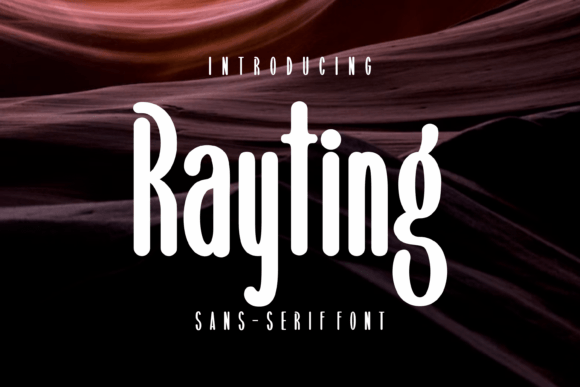
Introducing Rayting, the font that will ignite your creativity and take your designs to the next level. This captivating sans-serif font, brought to you by the talented lelevien, seamlessly blends elegance with modernity, making it the ultimate choice for a wide range of projects.
With its crisp, clean lines and minimalist aesthetic, Rayting is the epitome of sophistication. Its versatile nature makes it perfect for everything from captivating headlines to captivating body text, effortlessly adding a touch of refinement to any design. Whether you're creating a sleek website, a stunning logo, or an eye-catching social media post, Rayting will elevate your work with its timeless appeal.
Inspired by the grandeur of Game of Thrones, Rayting exudes a regal and powerful aura that will make your designs stand out from the crowd. Its intricate details and subtle curves hint at a world of epic battles and mythical creatures, giving your work a touch of enchantment and intrigue.